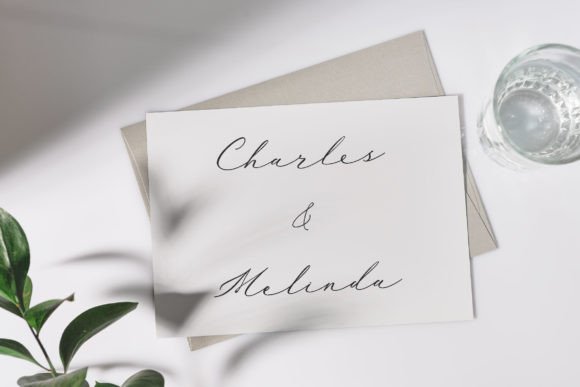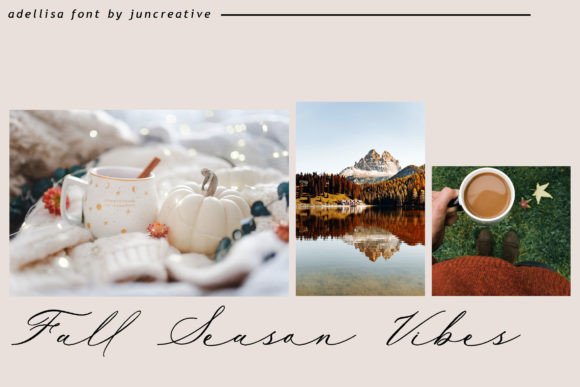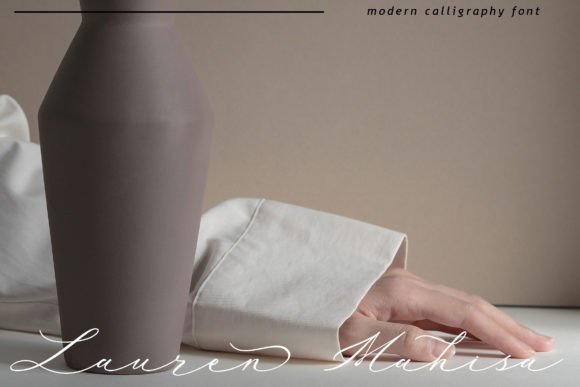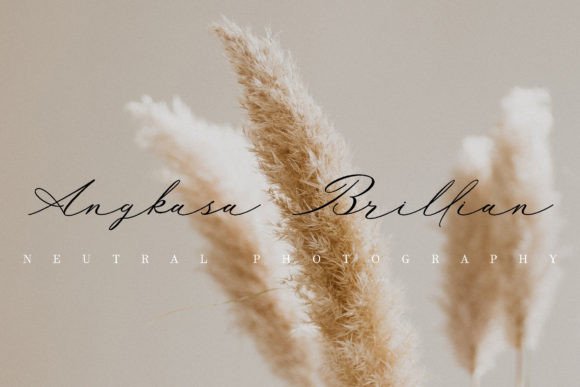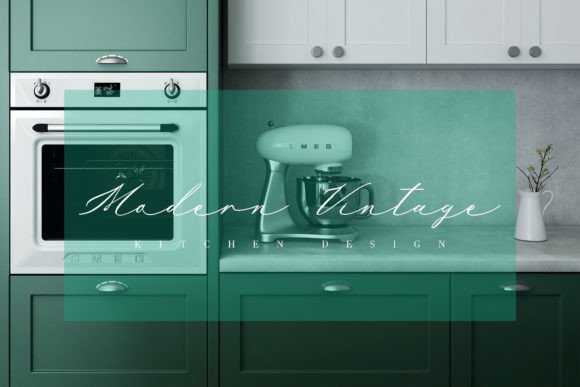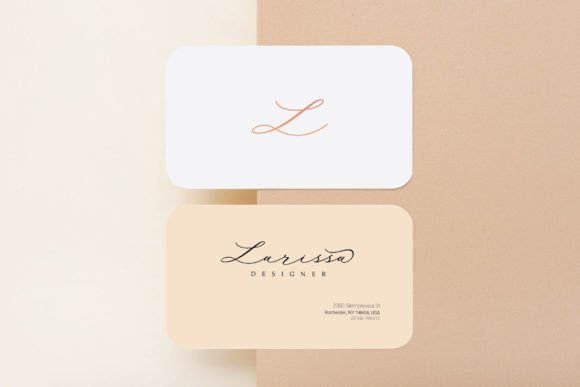
Introducing Adellisa Font: Elevate Your Designs with Modern Calligraphy
In the world of typography, a good font can make all the difference in the success of a design project. For designers, crafters, and creatives looking to add a touch of elegance and sophistication to their work, the Adellisa Font is an excellent choice. This modern calligraphy font is meticulously crafted with high attention to detail, making it a valuable asset to any font library.
What Makes Adellisa Font Stand Out?
Adellisa Font is not just another calligraphy font; it’s a versatile and powerful tool that can enhance any creation. Here are some key features that make Adellisa Font stand out:
- Modern Calligraphy Style: Adellisa Font boasts a contemporary calligraphy style that is both fresh and timeless. Its elegant strokes and fluid connections make it perfect for designs that require a personal touch.
- Highly Detailed: The font is crafted with meticulous attention to detail, ensuring that every letterform and swash is beautifully designed and easy to read.
- PUA Encoded: Adellisa Font is PUA (Private Use Area) encoded, which means you can easily access all glyphs and swashes. This feature allows for greater flexibility and creativity in your designs.
Why Choose Adellisa Font?
Whether you’re working on a branding project, creating wedding invitations, or designing social media graphics, Adellisa Font can help you achieve your design goals. Here are some reasons why you should consider adding Adellisa Font to your collection:
- Enhance Your Designs: With Adellisa Font, you can add a touch of sophistication and elegance to your designs. Its modern calligraphy style is sure to impress your clients and audience.
- Versatile and Flexible: The font’s versatility makes it suitable for a wide range of design projects, from stationery and packaging to digital graphics and signage.
Tips for Using Adellisa Font Effectively
To get the most out of Adellisa Font, here are some tips to keep in mind:
- Pair it with Other Fonts: Adellisa Font works well when paired with other fonts, especially sans-serif fonts. Experiment with different font combinations to find the perfect balance for your design.
- Use it for Headlines and Titles: The font’s elegant style makes it perfect for headlines and titles. Use it to draw attention to important information and add visual interest to your designs.
- Experiment with Swashes: The PUA encoding allows you to access a range of swashes and glyphs. Experiment with different swashes to add a personal touch to your designs.
Who Can Benefit from Adellisa Font?
Adellisa Font is an excellent choice for a wide range of designers and crafters, including:
- Graphic Designers: Add a touch of elegance to your designs with Adellisa Font. Its modern calligraphy style is perfect for branding, packaging, and digital graphics.
- Stationery Designers: Create beautiful stationery, including wedding invitations, greeting cards, and letterheads, with Adellisa Font.
- Crafters: Add a personal touch to your craft projects, such as scrapbooking, journaling, and card making, with Adellisa Font.
In conclusion, Adellisa Font is a versatile and powerful tool that can elevate your designs and add a touch of sophistication. Its modern calligraphy style, highly detailed craftsmanship, and PUA encoding make it an excellent choice for designers, crafters, and creatives. Whether you’re working on a branding project, creating stationery, or designing digital graphics, Adellisa Font is sure to become a valuable asset to your font library.